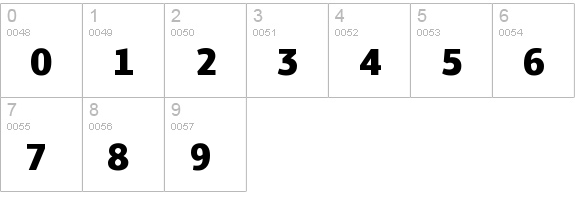
PFBulletinSansPro-Black is a maximum-weight, dramatic variant in the PFBulletinSansPro typeface family \xE2\x80\x94 well suited to maximum-impact headlines, posters, and packaging.
PFBulletinSansPro-Black is a bold and commanding font that exudes confidence and strength. Its thick strokes and sharp edges make it perfect for creating impactful headlines and titles that demand attention. This font is versatile and can be used for various design projects, from posters to logos to branding materials. The best part? PFBulletinSansPro-Black is available for free download at FontsMarket.com. This means you can add this powerful font to your collection without any cost, making it a valuable asset for your creative endeavors. Don't miss out on this opportunity to elevate your designs with the bold and striking PFBulletinSansPro-Black font. Download it now and make a statement with your typography!